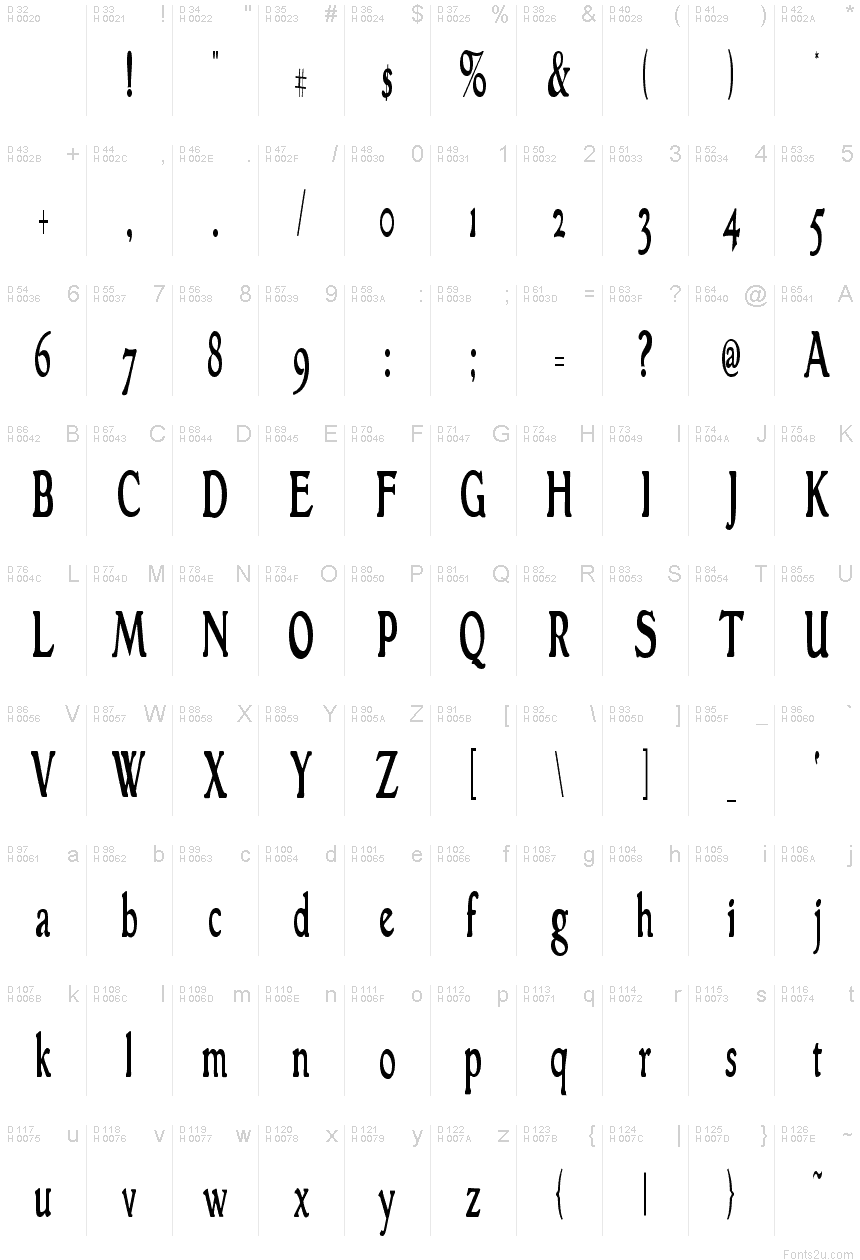
GranthamCondensed Roman
Grantham Condensed Roman font by Pjl is a free retro serif font. Tall, narrow letters with inky, slightly uneven strokes give it the mood of old newspaper headlines and early 20th‑century posters. The condensed proportions let you squeeze long words into tight spaces without losing that chunky, hand-printed feel, so every line looks bold, urgent, and just a bit nostalgic.
Using Grantham Condensed Roman, this free font shines on vintage-style posters, book covers, beer or coffee labels, theater programs, banners, and heritage branding. Its dense rhythm pulls the eye across a page, making short phrases and titles feel weighty and dramatic. Pair it with a clean geometric sans for body text, and keep GranthamCondensed Roman large and well-spaced to show off its quirky retro texture.